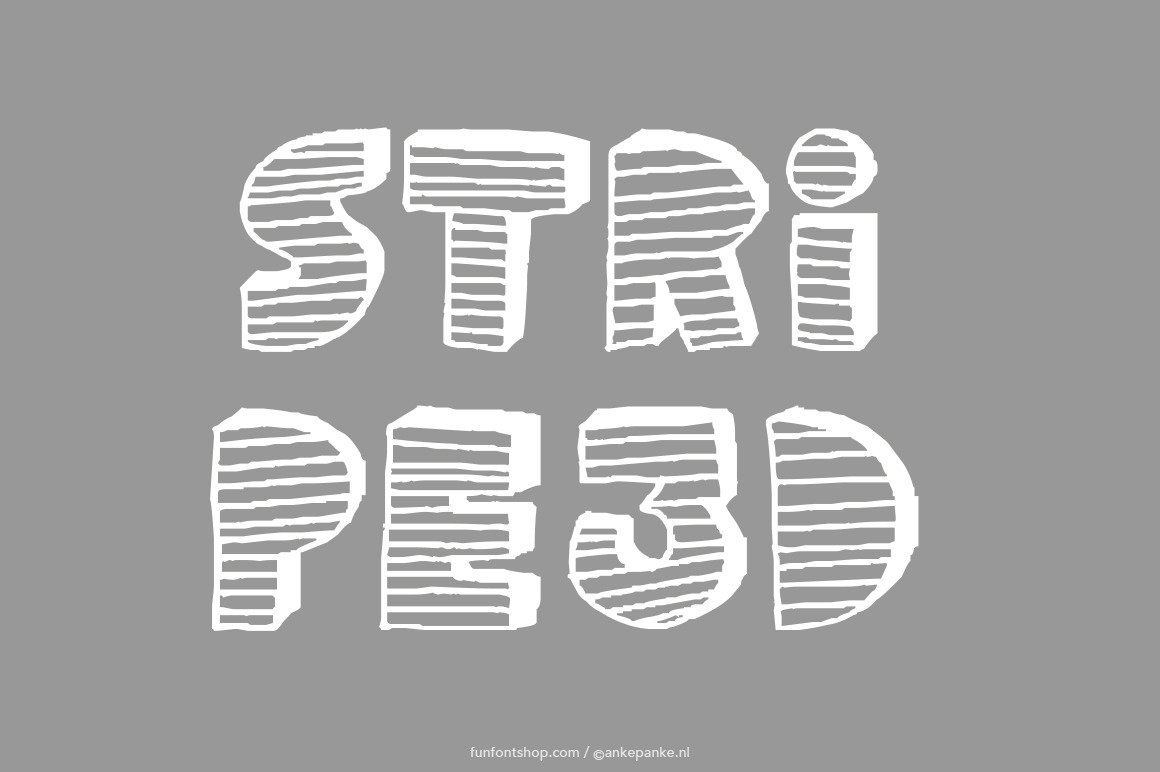
Stripe 3D handmade Font
The letters of this cool font are 3D, with the front striped and the dimension black. This font was first draw by hand, scanned, vectorized and converted to a TTF file so you type with it. They have some imperfections, but I believe that adds to the handmade feeling.
- Letters Uppercase and numbers
- Punctuation !?=-_,.:;'"()
- Extra heart and star